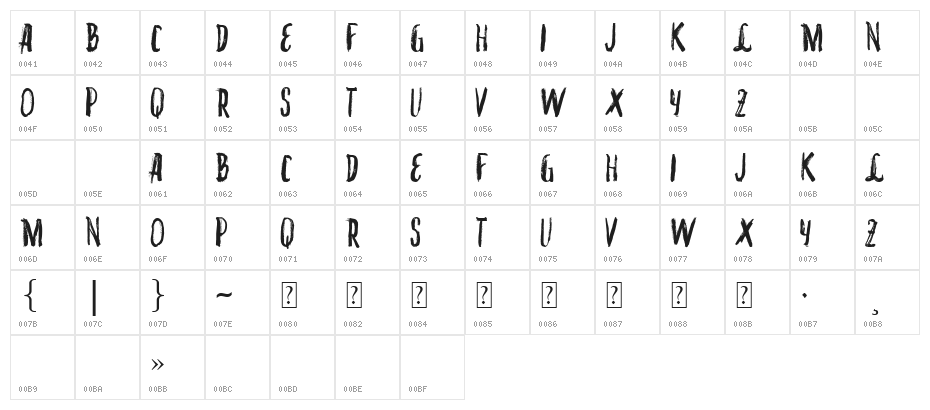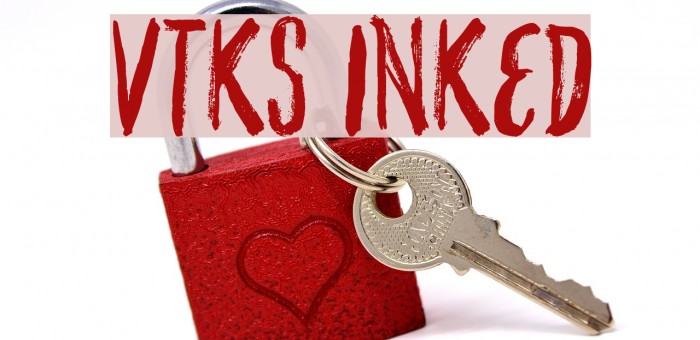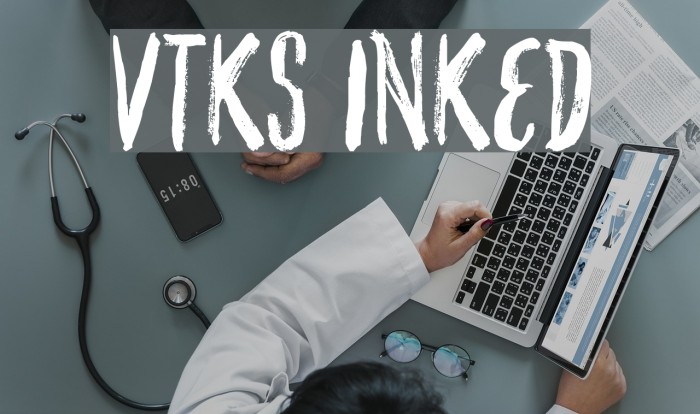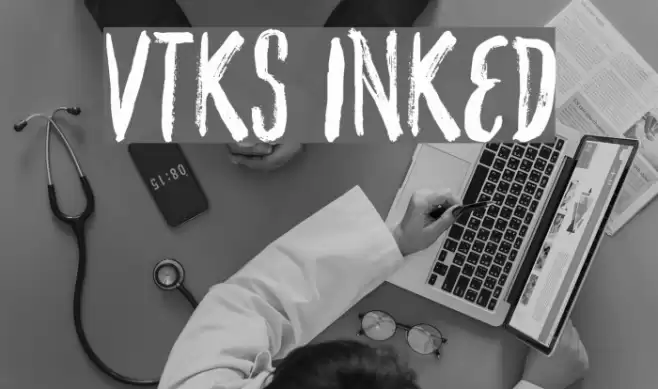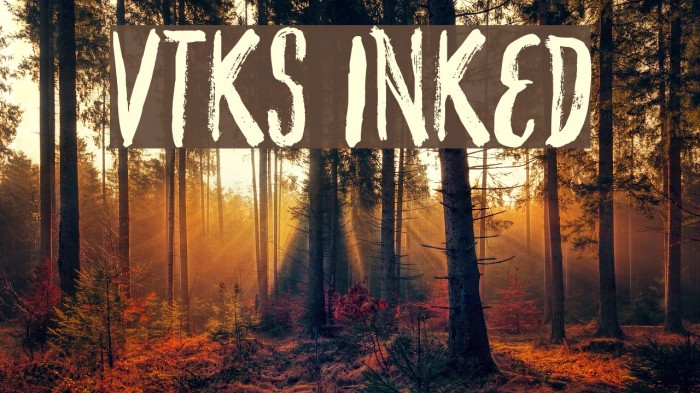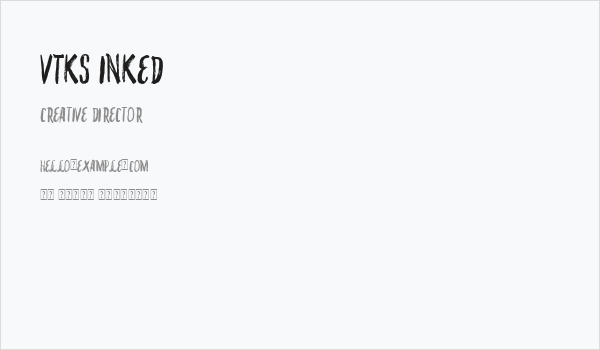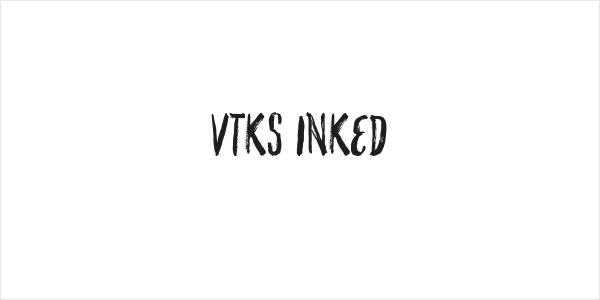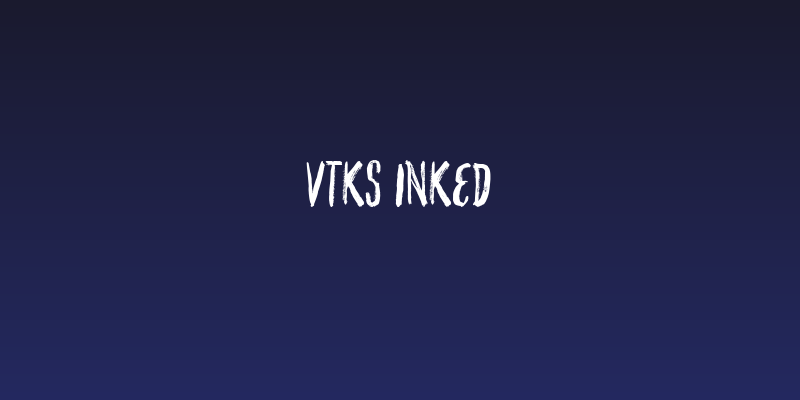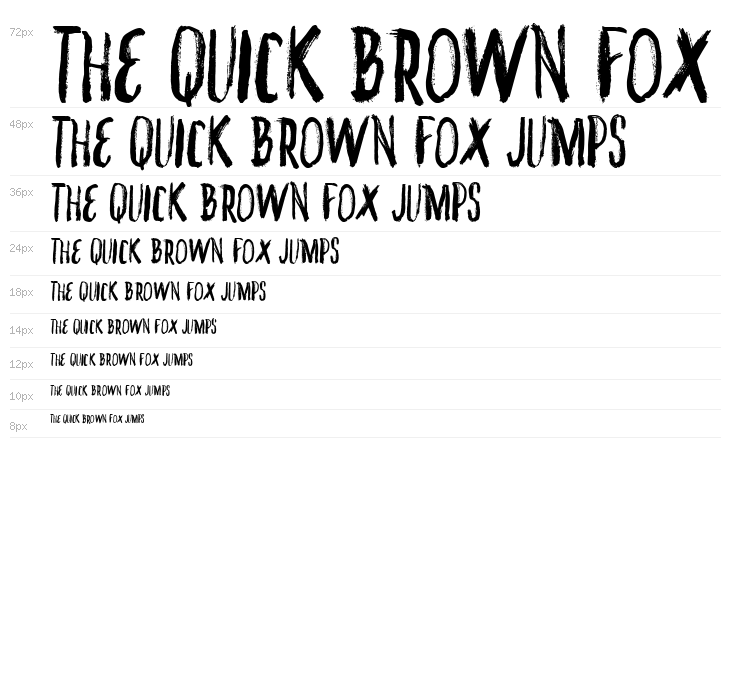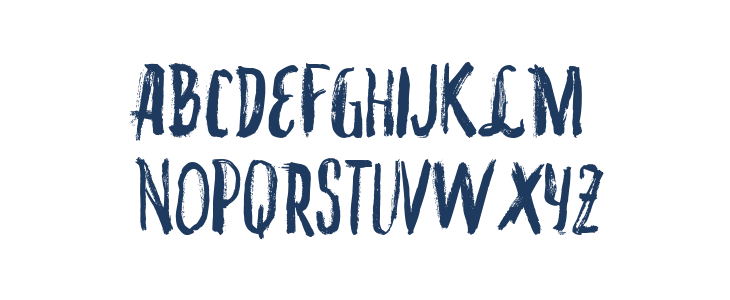
VTKS INKED Font
VTKS INKED Description
This font features a bold, brush-stroke style that gives it a raw and expressive appearance. The letters are characterized by uneven edges and varying thickness, mimicking the effect of ink applied with a brush. This creates a dynamic and energetic feel, making it stand out in any design. The uppercase and lowercase letters maintain a consistent style, with a slightly condensed form that adds to its striking look. The font's texture and irregularity add a handcrafted touch, making it suitable for projects that require a personal or artistic flair.
| Proposed Projects | Ideal for posters, album covers, branding, and any project needing an artistic, handcrafted touch. |